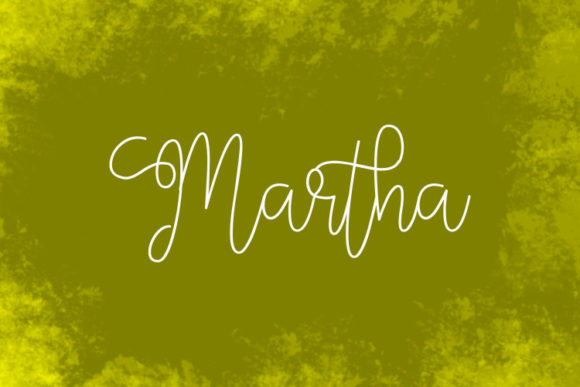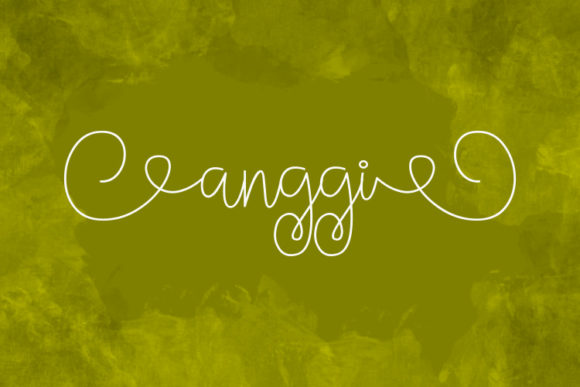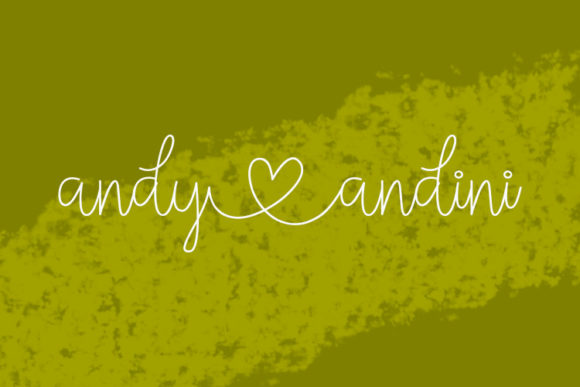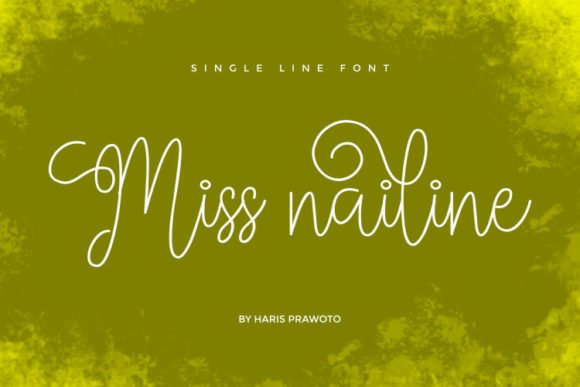
Introduction to Miss Nailine Font
Miss Nailine is a sweet and delicate handwritten font.
Fall in love with its authentic feel and use it to create gorgeous wedding invitations, beautiful stationary art, eye-catching social media posts, and cute greeting cards This product is included in a CF Class: Learn to Use Cricut Foil Transfer System .
Key Features of Miss Nailine Font